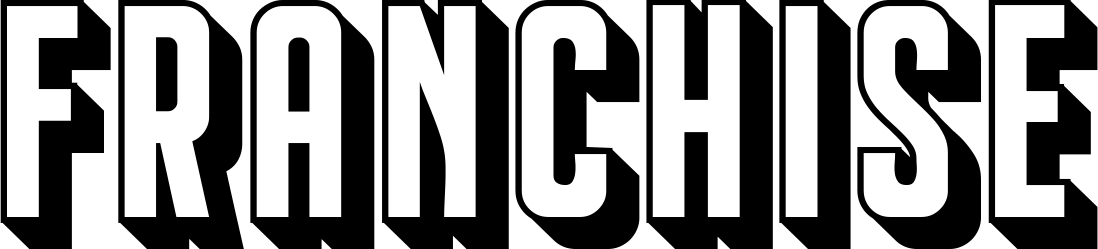
Franchise Font
It’s time to visualize your typographic design with this attractive Franchise font that appears in strong, tall, and bold letterforms; its 3D effects create a charming shadow that makes it enjoyable for many audiences.
This retro font has also provided two various styles to distract people from lacking lowercase letters and draw their attention to different versions of uppercase letters and numbers to be put in different designs of headlines, book covers, movie titles, branding, and posters.